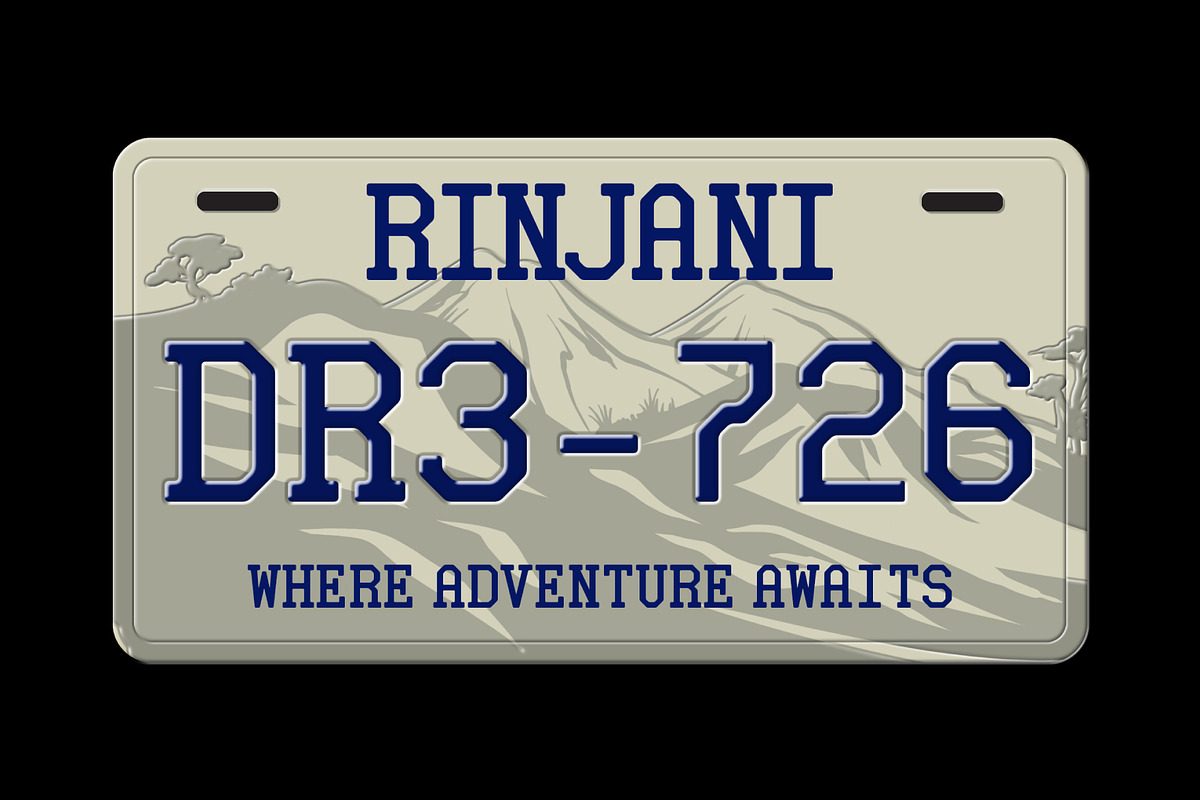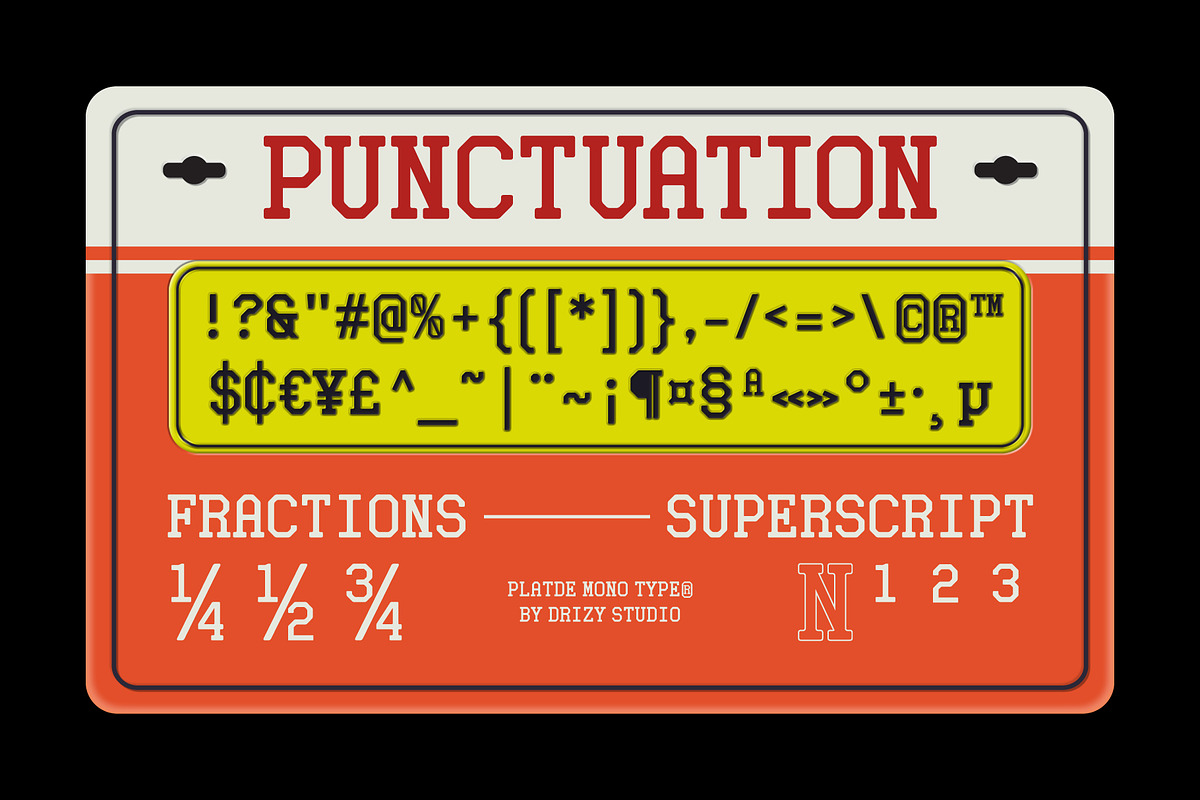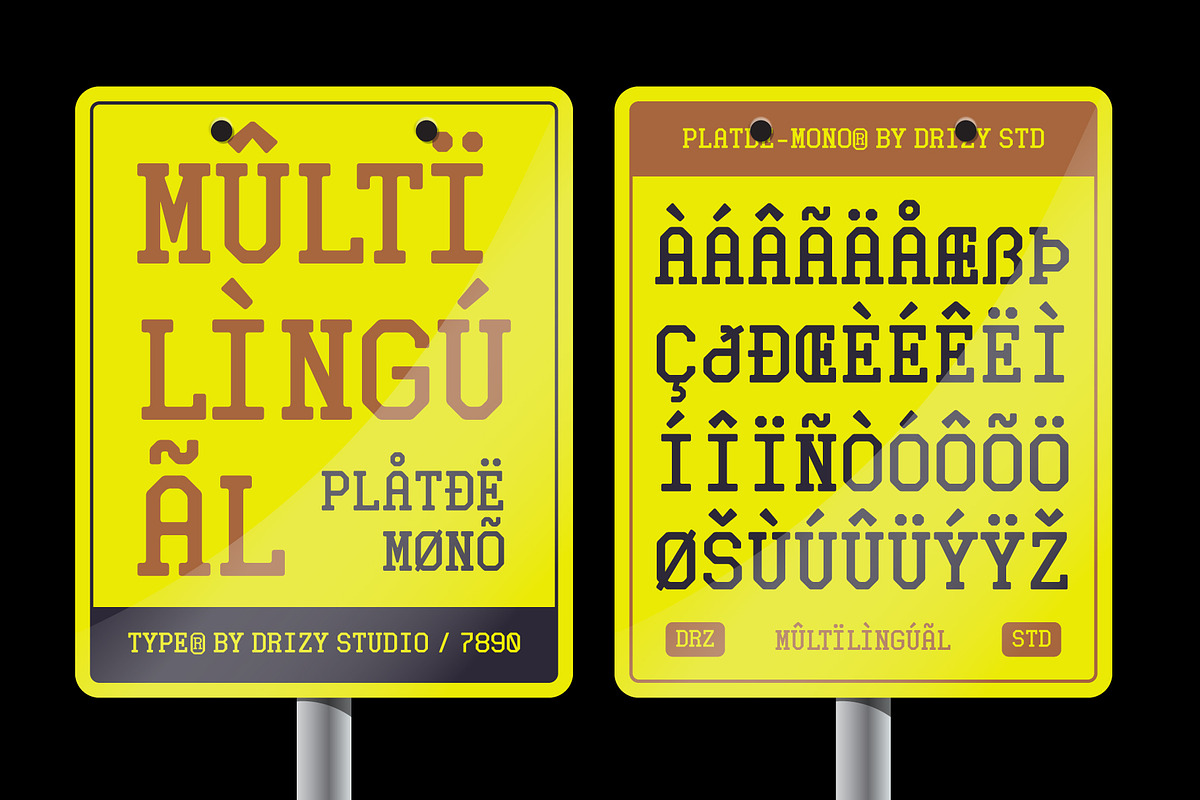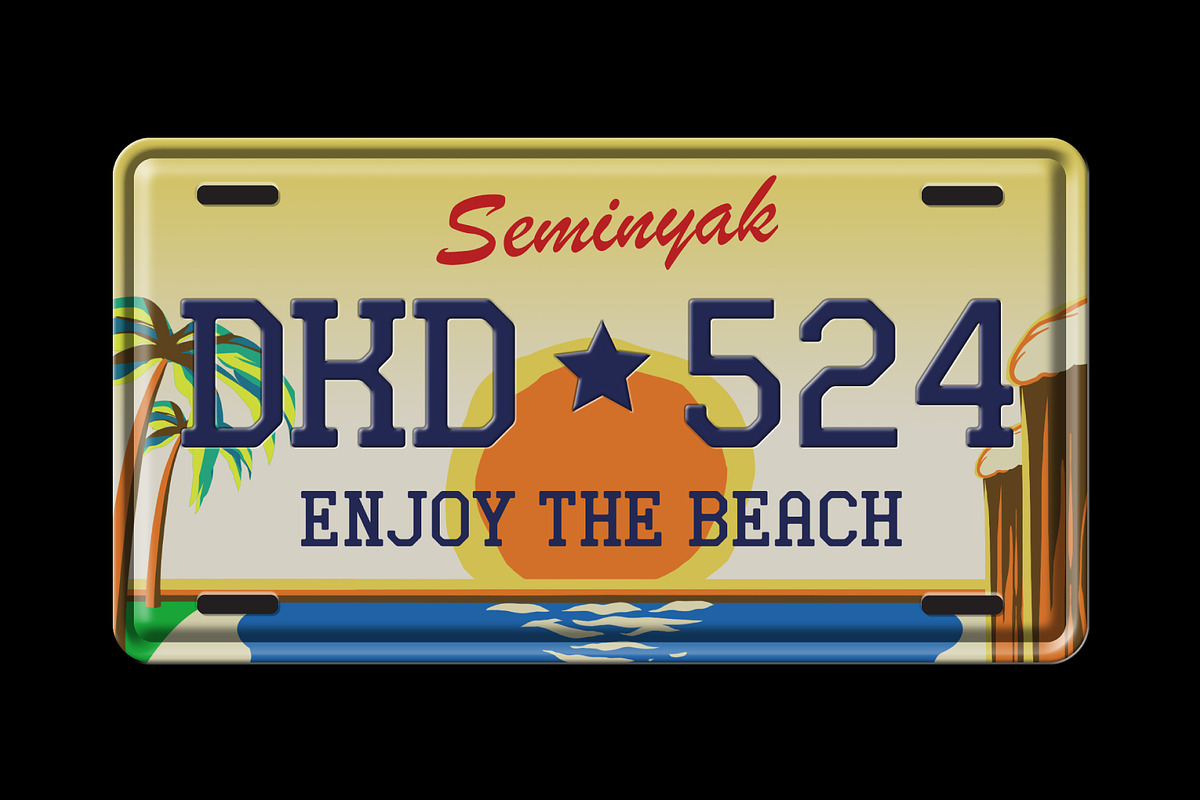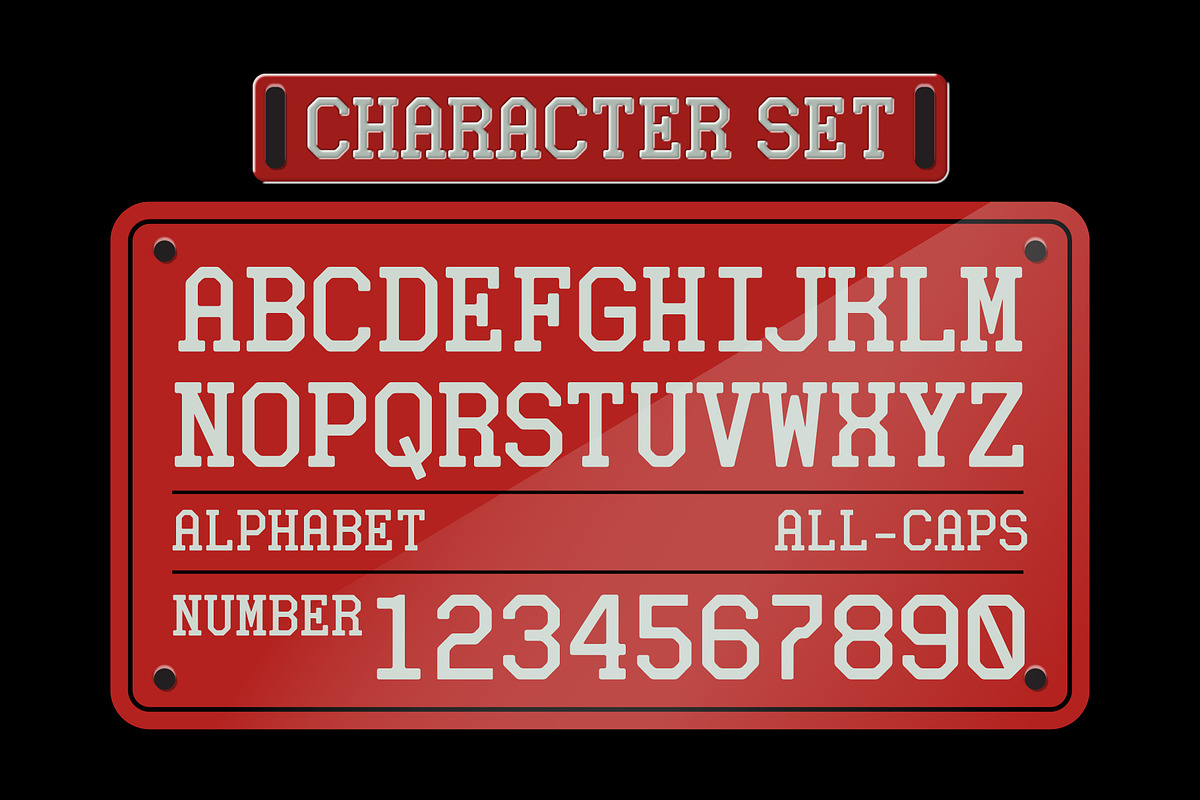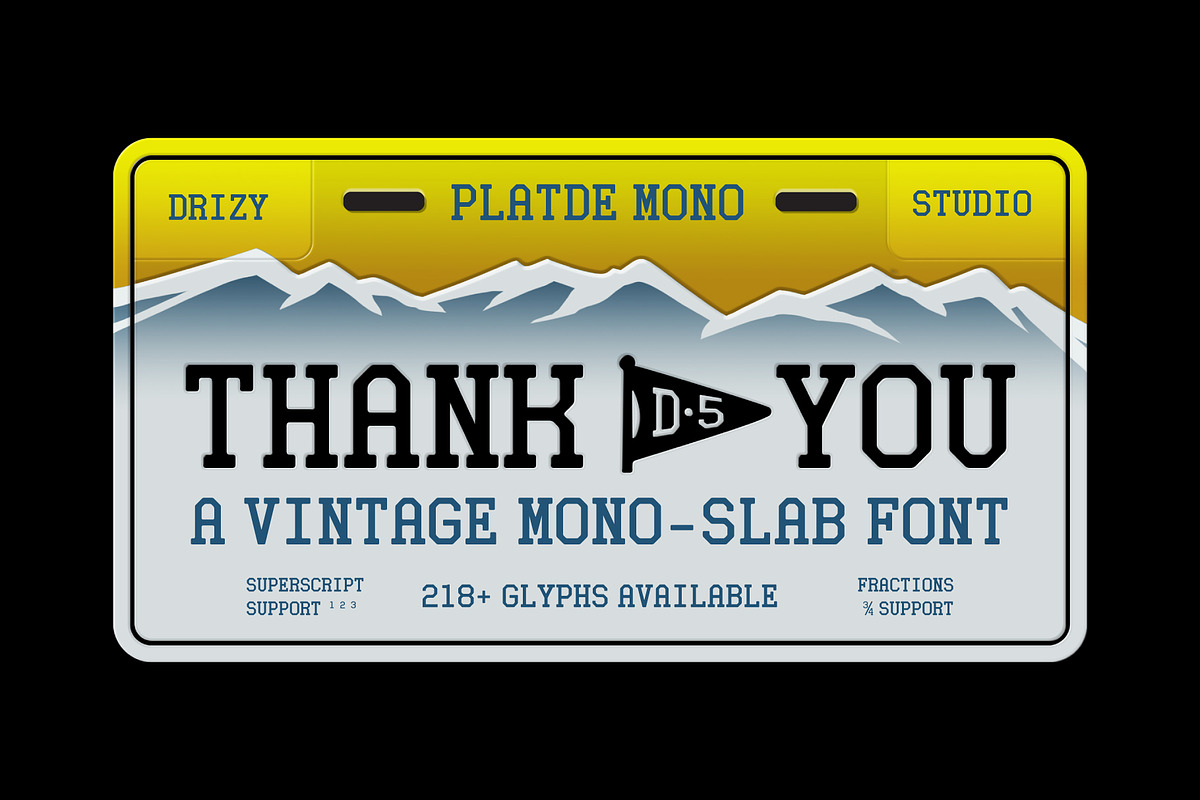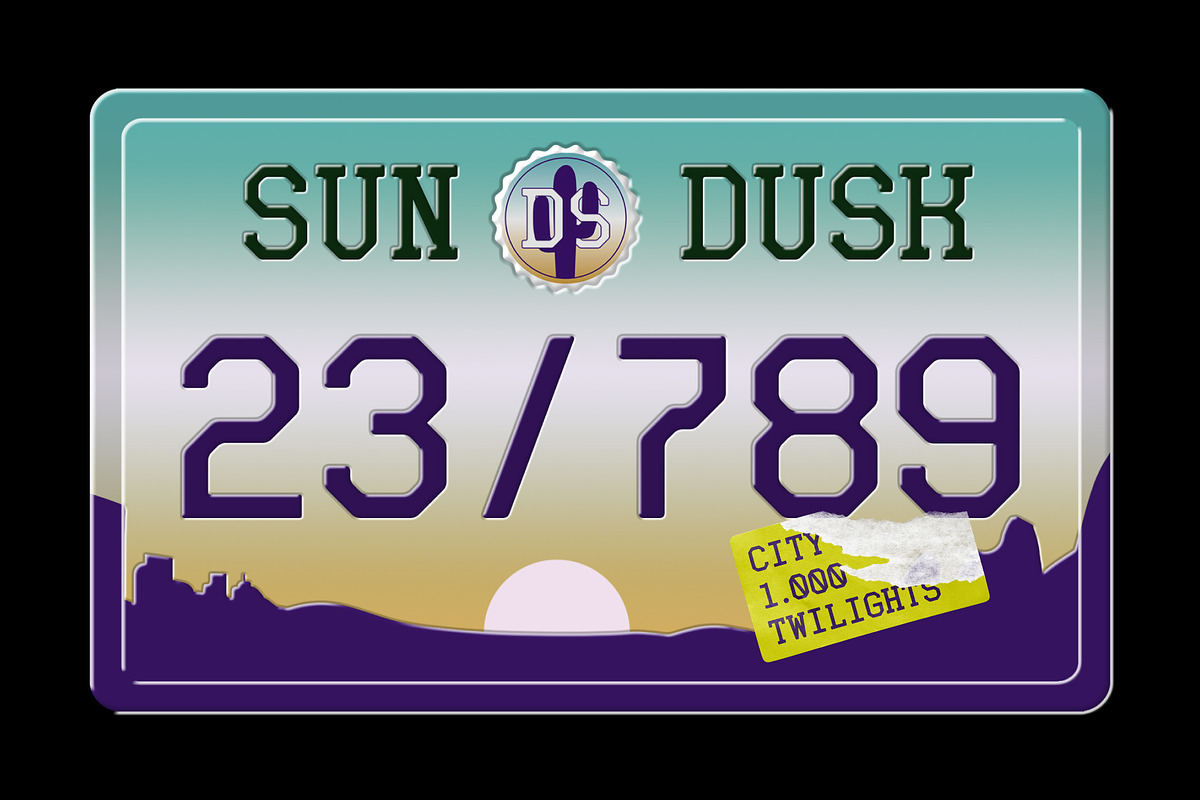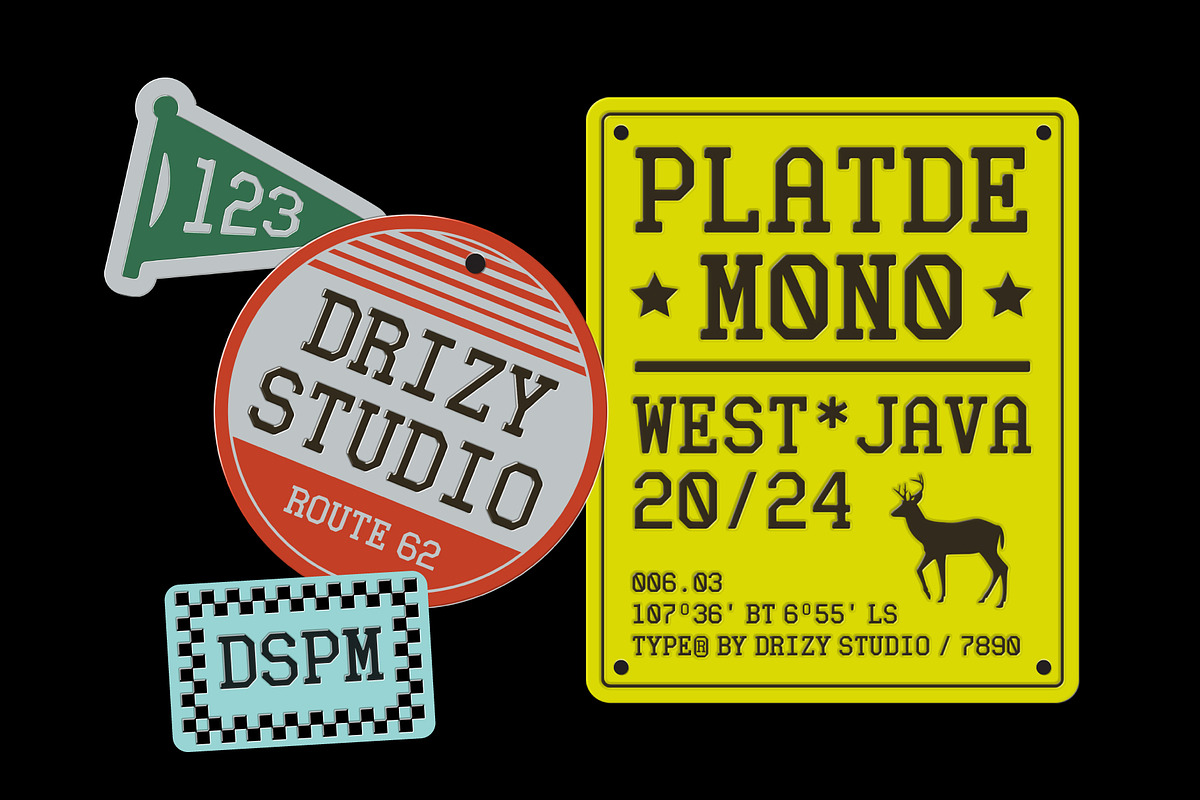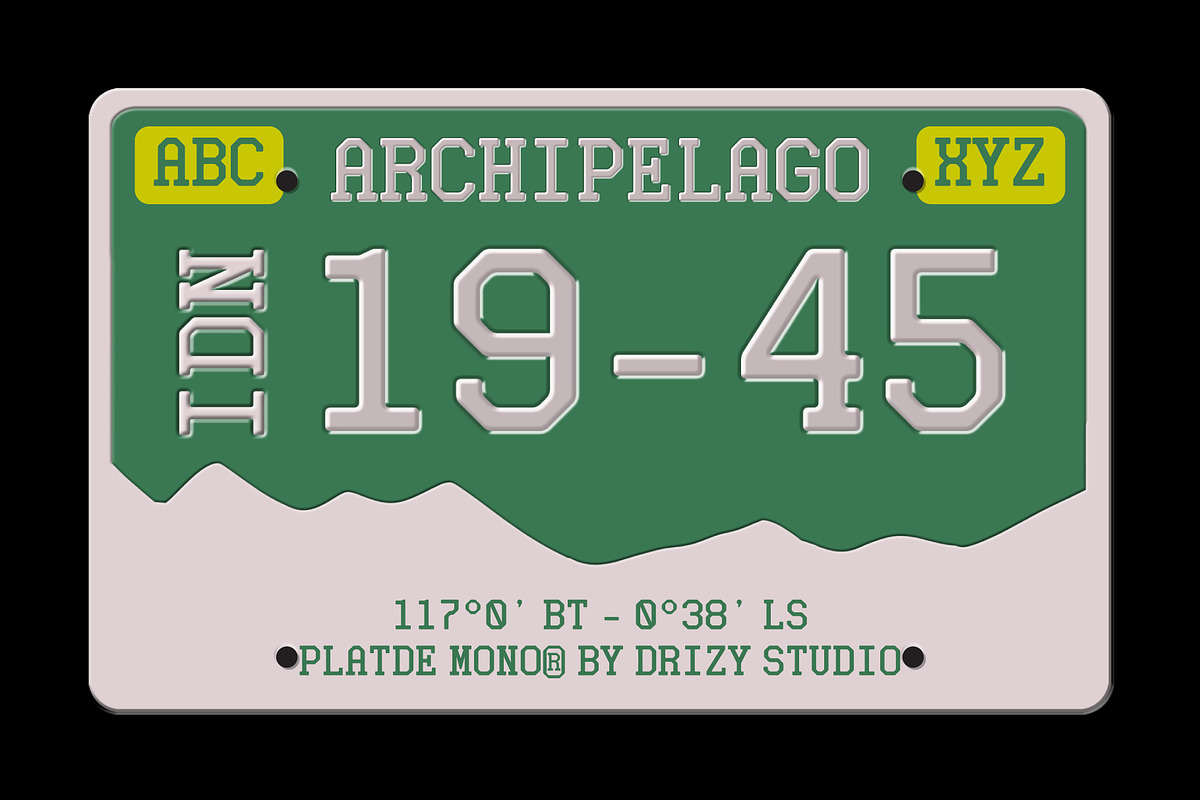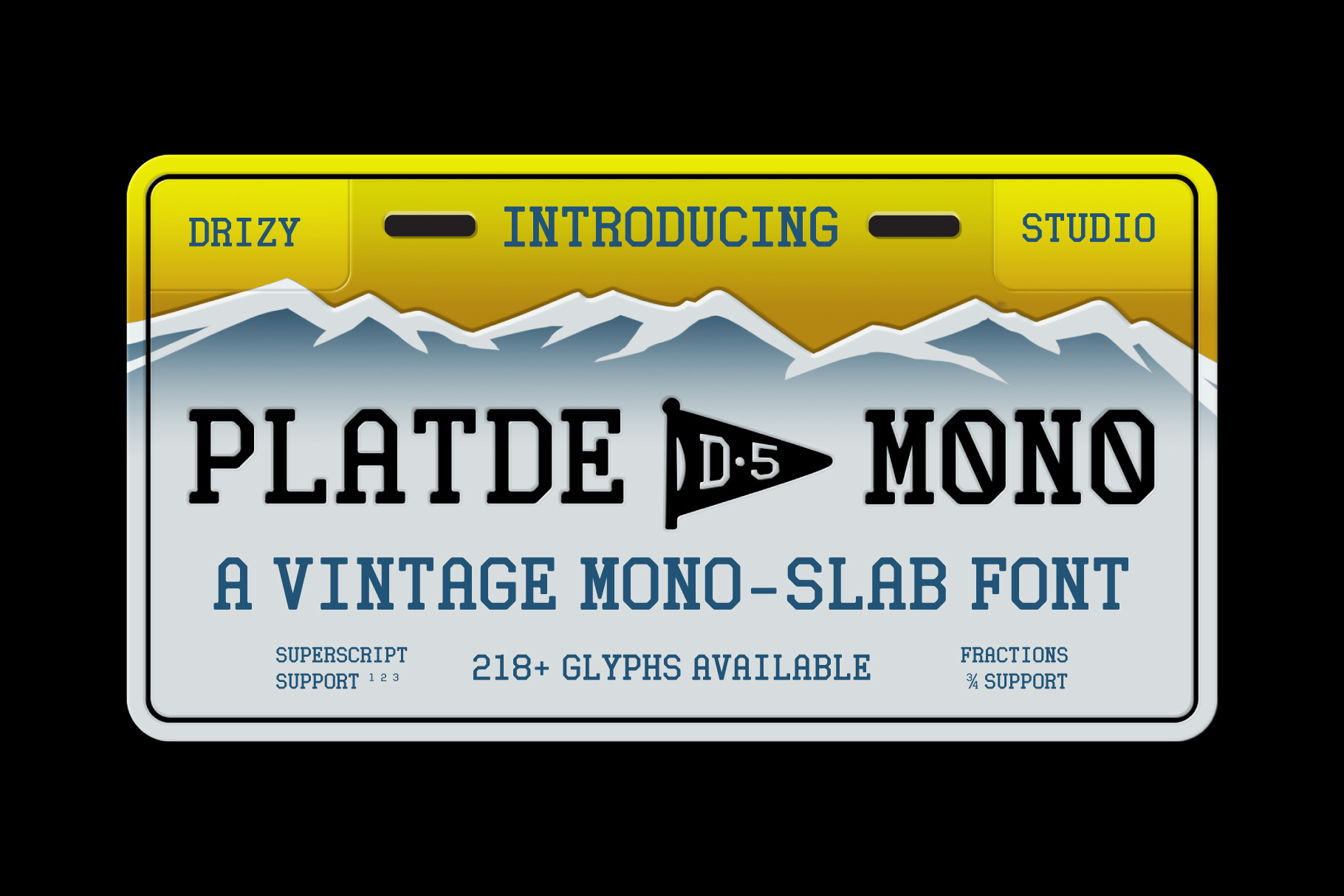
Platde - Vintage Mono Slab Font
Platde - Vintage Mono Slab is a meticulously crafted font that evokes the nostalgic charm of vintage license plates. Drawing inspiration from the classic monospaced slab serif typography seen on old vehicle tags, Platde captures the essence of retro Americana while infusing it with a contemporary flair.
Platde features: Character Set Punctuation & Numbers Multilingual